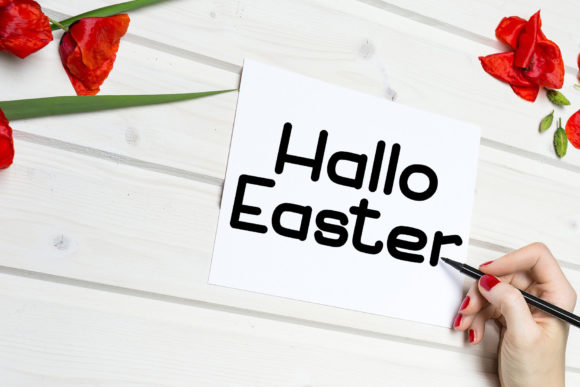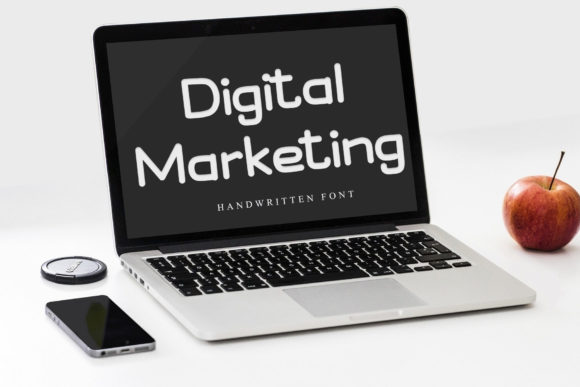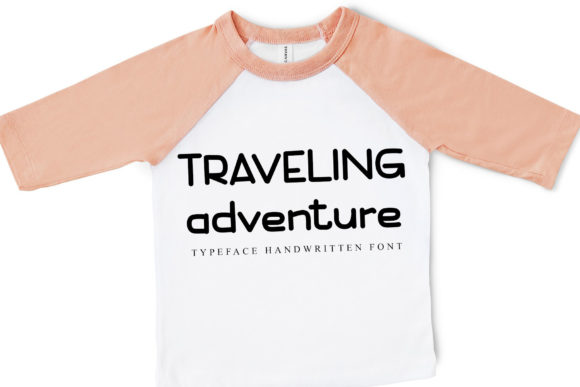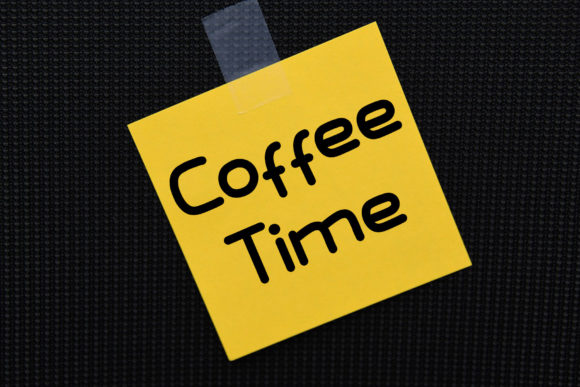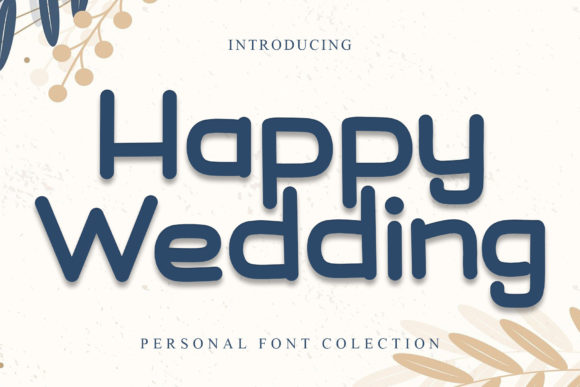
Introducing Happy Wedding Font: Elevate Your Designs with Elegance and Charm
Are you a designer or crafter looking for the perfect font to add a touch of sophistication and whimsy to your projects? Look no further than Happy Wedding Font, a unique and elegant sans serif font that’s sure to make your designs shine. In this article, we’ll dive into the features and benefits of Happy Wedding Font, and explore how it can help you create stunning designs that capture the hearts of your audience.
The Unique Characteristics of Happy Wedding Font
Happy Wedding Font is a one-of-a-kind sans serif font that boasts a varied baseline, giving it a natural, hand-made touch that’s hard to find in digital fonts. This distinctive feature sets it apart from other fonts and adds a level of elegance and sophistication to your designs. The font’s clean lines and simple shapes make it highly versatile, suitable for a wide range of design projects, from wedding invitations and stationery to branding and advertising materials.
Why Choose Happy Wedding Font?
So, what makes Happy Wedding Font the perfect choice for designers and crafters? Here are just a few reasons why:
- Elegance and Sophistication: Happy Wedding Font exudes elegance and sophistication, making it perfect for designs that require a touch of luxury and refinement.
- Versatility: The font’s clean lines and simple shapes make it highly versatile, suitable for a wide range of design projects.
- Hand-made Touch: The varied baseline gives the font a natural, hand-made touch that’s sure to add a level of personality to your designs.
- Easy to Read: The font is highly legible, making it perfect for designs that require a clear and easy-to-read message.
How to Use Happy Wedding Font in Your Designs
Happy Wedding Font is incredibly easy to use and can be applied to a wide range of design projects. Here are a few ideas to get you started:
- Wedding Invitations: Create beautiful and elegant wedding invitations that set the tone for the big day.
- Stationery: Add a touch of sophistication to your stationery designs, including business cards, letterheads, and more.
- Branding: Use Happy Wedding Font to create a unique and memorable brand identity that stands out from the crowd.
- Advertising Materials: Create eye-catching advertising materials, including brochures, flyers, and posters, that showcase your brand’s personality.
Tips and Tricks for Getting the Most Out of Happy Wedding Font
To get the most out of Happy Wedding Font, here are a few tips and tricks to keep in mind:
- Experiment with Different Sizes: Don’t be afraid to experiment with different font sizes to create visual interest and hierarchy in your designs.
- Pair it with Other Fonts: Happy Wedding Font pairs well with other fonts, so don’t be afraid to experiment with different combinations to create a unique look.
- Use it in Combination with Images: The font works beautifully in combination with images, so consider using it to add a touch of elegance to your design.
In conclusion, Happy Wedding Font is a unique and elegant sans serif font that’s perfect for designers and crafters looking to add a touch of sophistication and whimsy to their projects. With its varied baseline and natural, hand-made touch, this font is sure to make your designs shine. Whether you’re creating wedding invitations, stationery, branding materials, or advertising materials, Happy Wedding Font is the perfect choice. So why wait? Download Happy Wedding Font today and start creating stunning designs that capture the hearts of your audience!